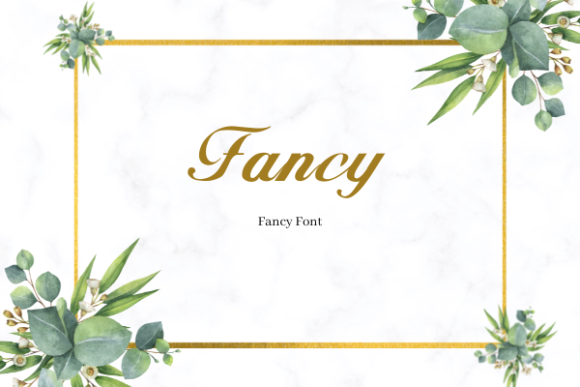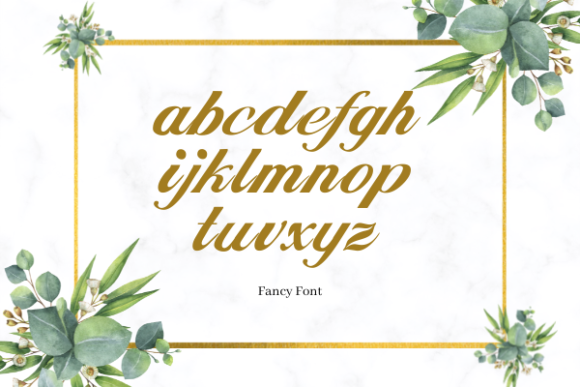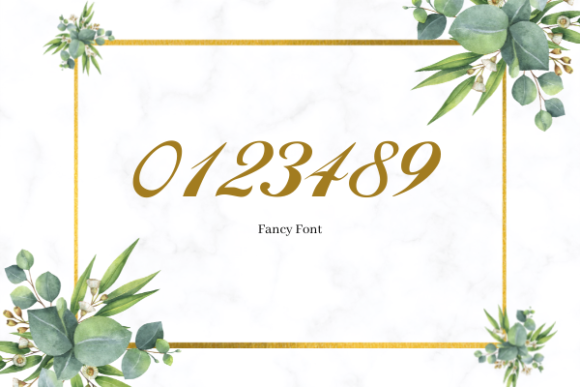
About Fancy Font
Set the mood of your projects with this elegant and Fancy handwritten font. This fancy font is just that – it’s fancy, stylish, and luxurious with an italic look. Great for graphic projects, headers, cards, invitations, and more. This exquisite typeface will add value to your text or logos.